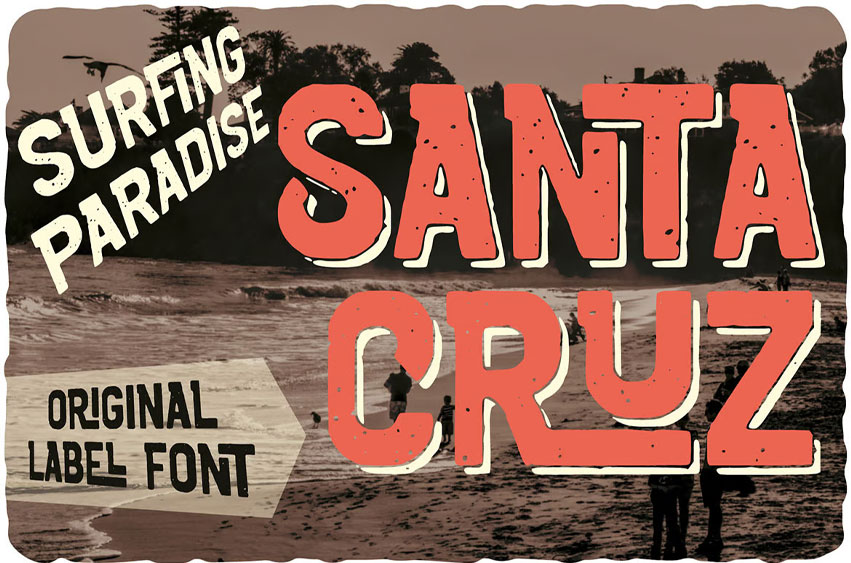
Santa Cruz Label Font
Santa Cruz Label Font Unique, creative, vintage, bold, retro, game & layered label sans serif font. Comes with multilingual support & ligatures + 6 font versions – great for your new logo, monogram, or branding project.
• 6 font versions
• Multilingual support & ligatures
• Great for retro or vintage-style branding projects